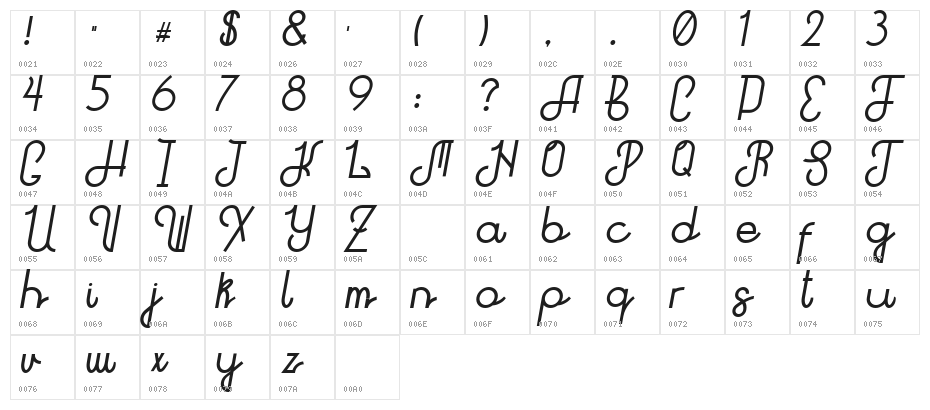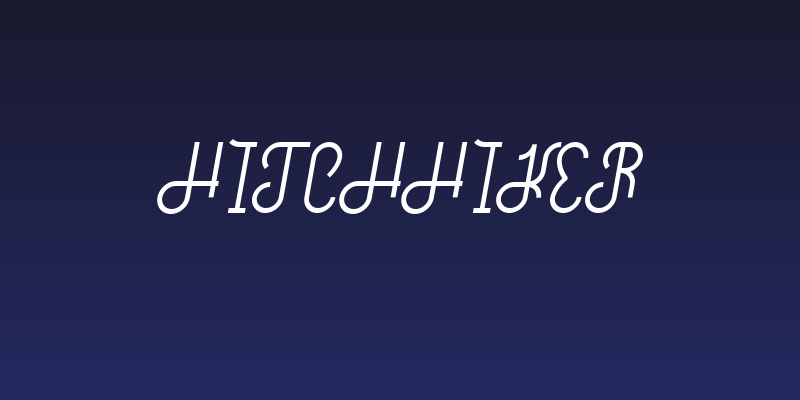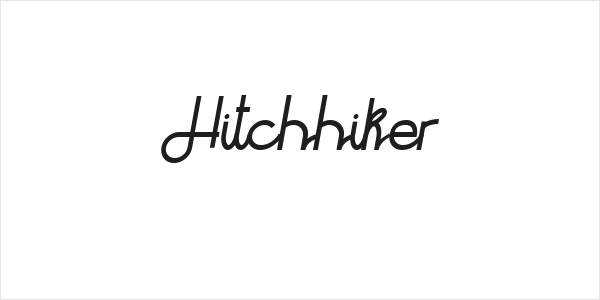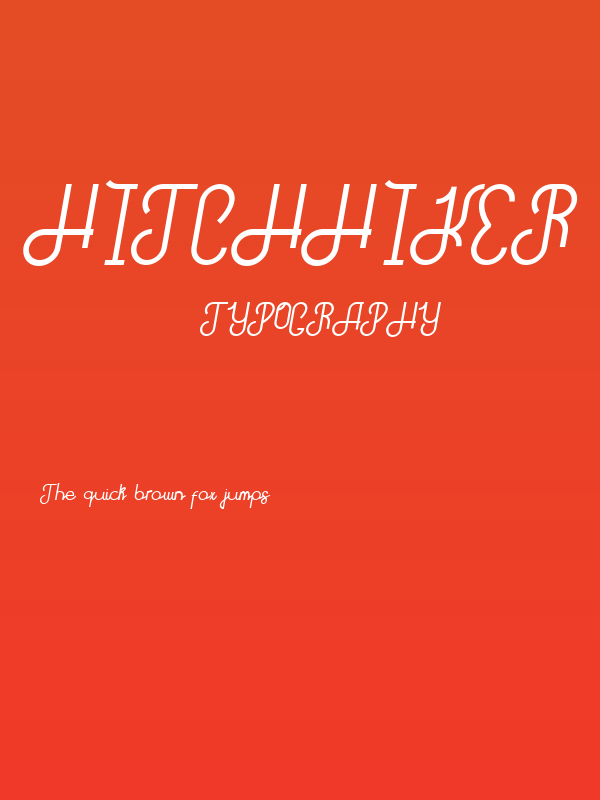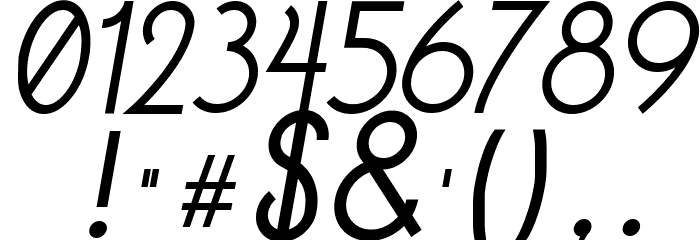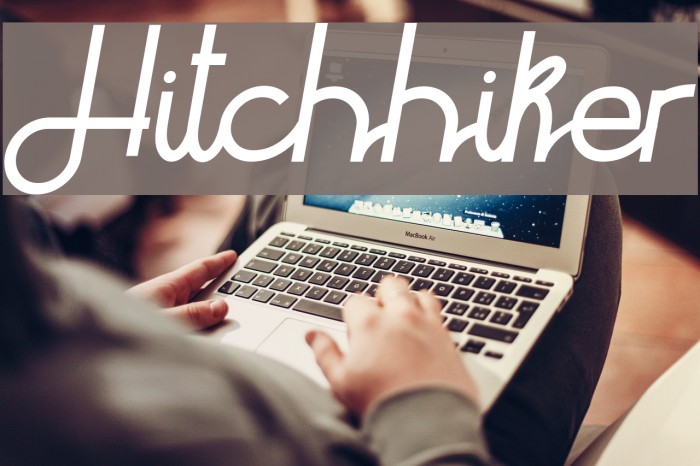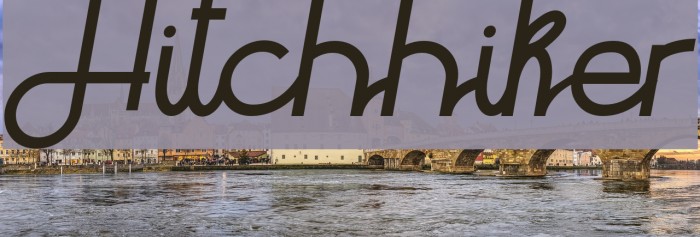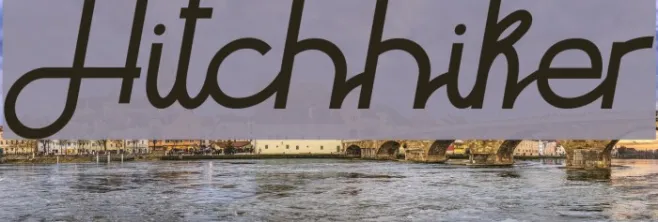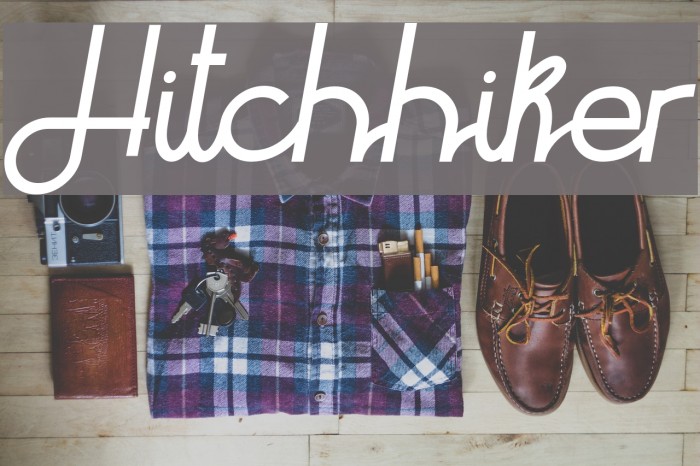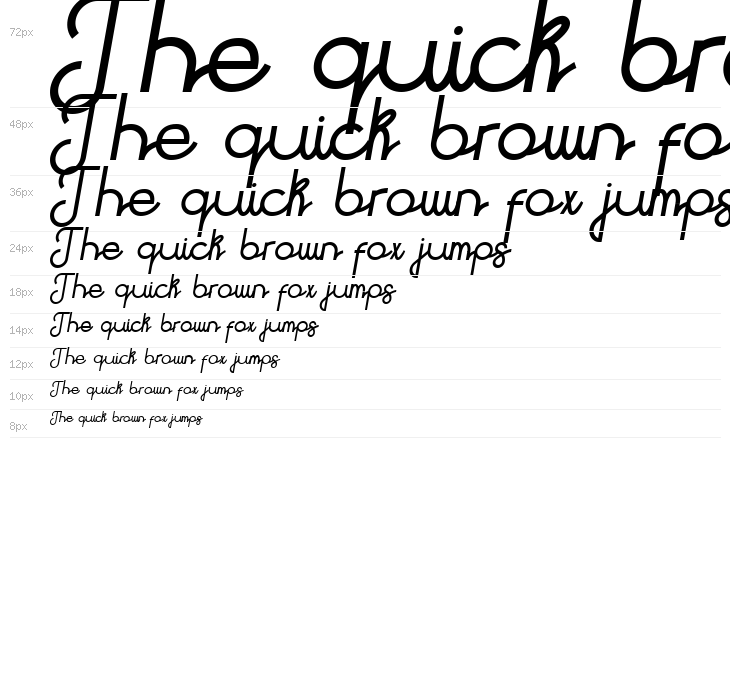
Hitchhiker Font
Hitchhiker Description
This font features a distinctive and playful script style with a modern twist. The uppercase letters are characterized by their elegant, flowing lines and slight slant, giving them a sense of motion and fluidity. The lowercase letters maintain a cohesive style, with smooth curves and a consistent stroke width that enhances readability. The numerals are bold and clear, matching the overall aesthetic of the alphabet. Special characters are integrated seamlessly, maintaining the font's unique style. The font's design is both artistic and functional, making it suitable for a variety of creative projects.